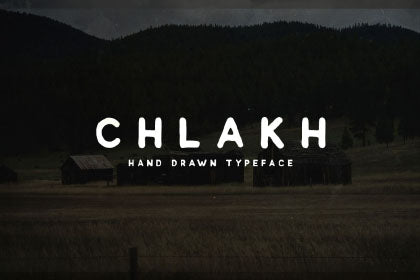
Free Chlakh Retro Typeface
We're glad to feature this awesome free chlakh retro typeface. This is a downloadable free typeface file brought to you by Free Design Resources. Showcase your designs like a graphic design pro by adding a new touch with this beautiful font.